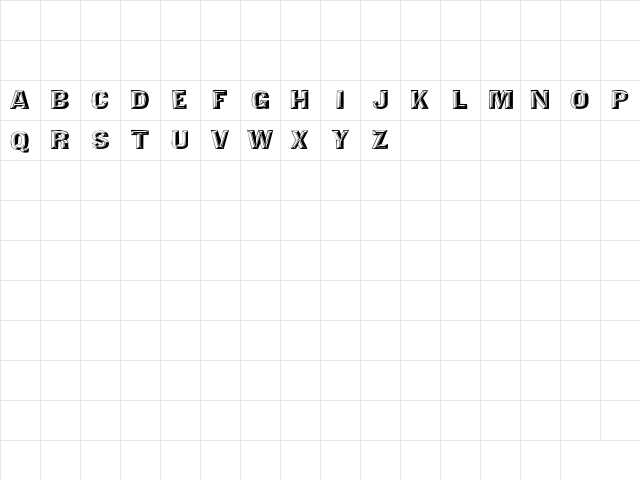
Tejaratchi Ex Lefti Regular
Complete Tejaratchi Ex Lefti Regular glyph index. Displaying only characters natively supported by Tejaratchi Ex Lefti Regular font.
Design Context for Tejaratchi Ex Lefti
Tejaratchi Ex Lefti is a composed and adaptable typeface that performs quietly and consistently across a wide range of design contexts.